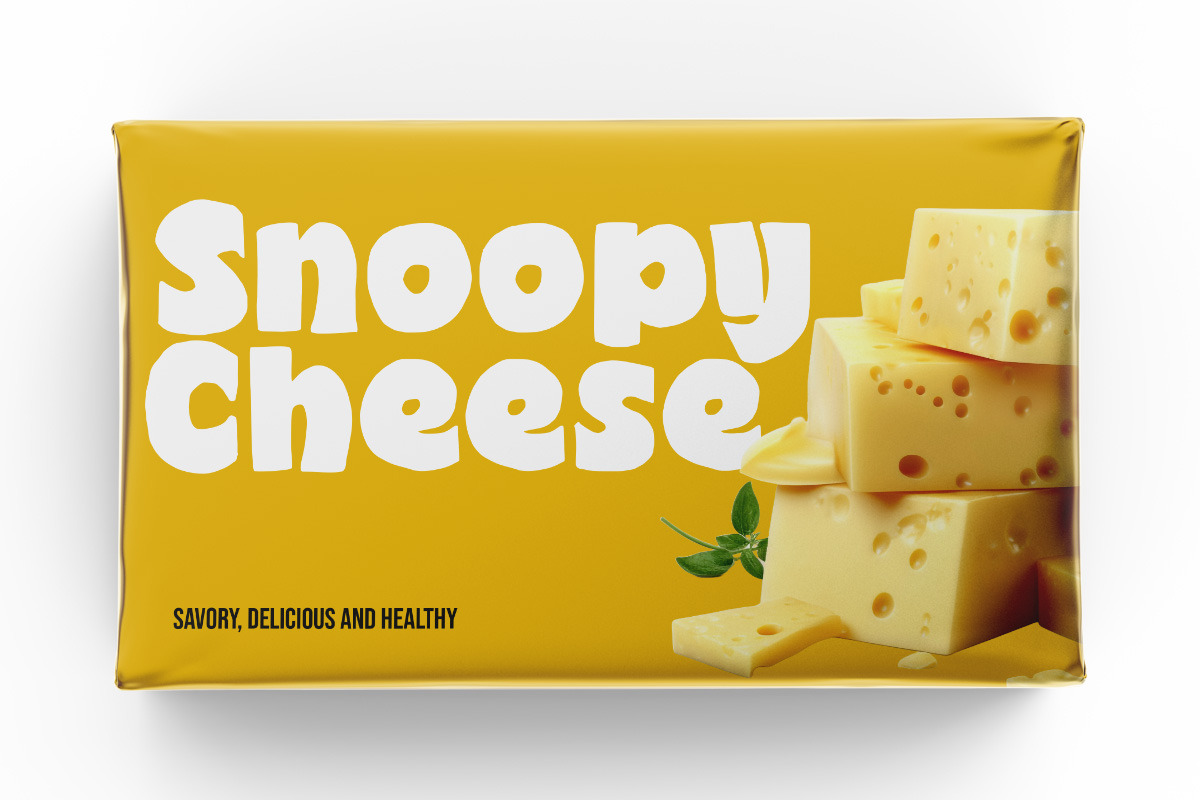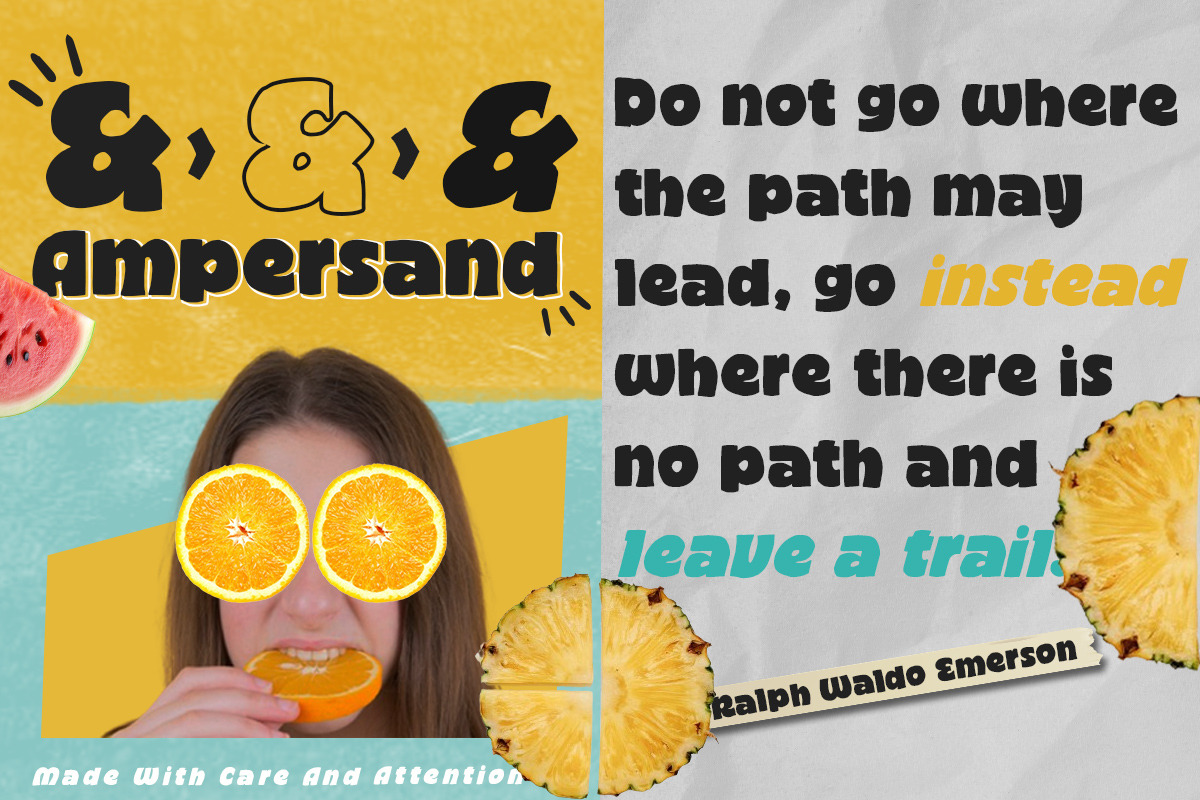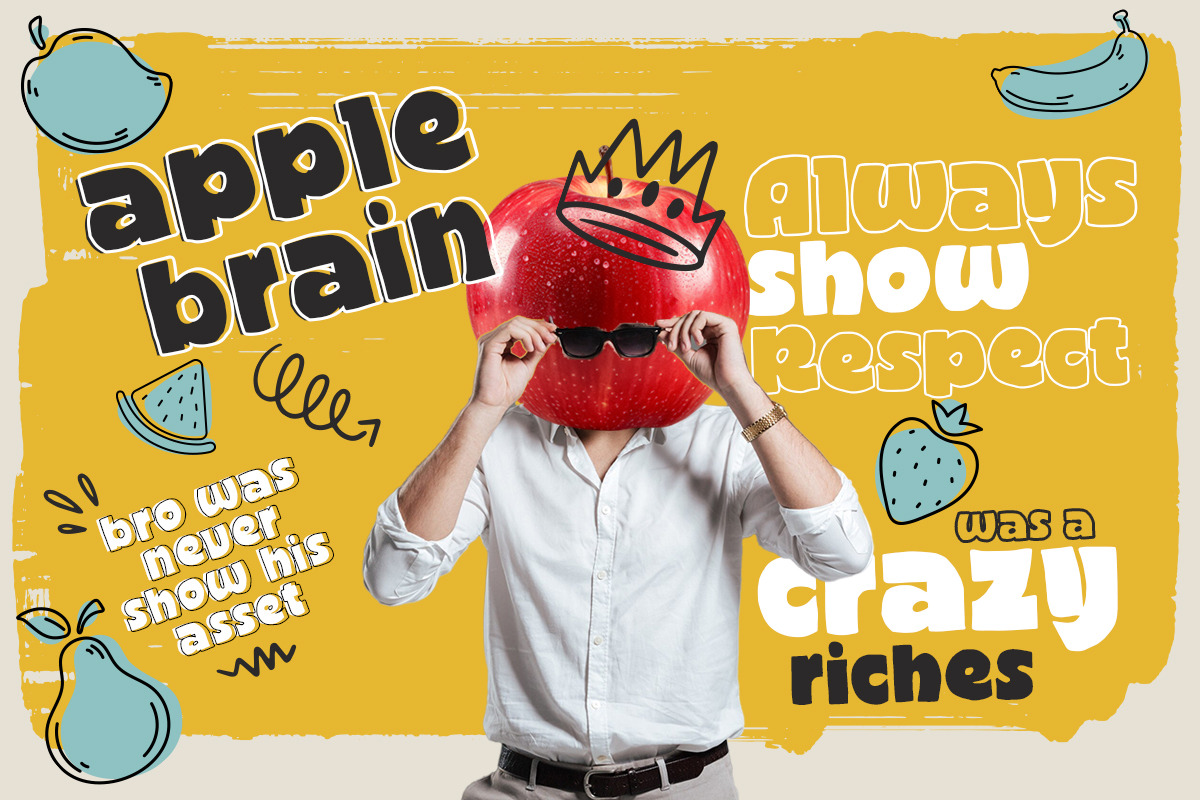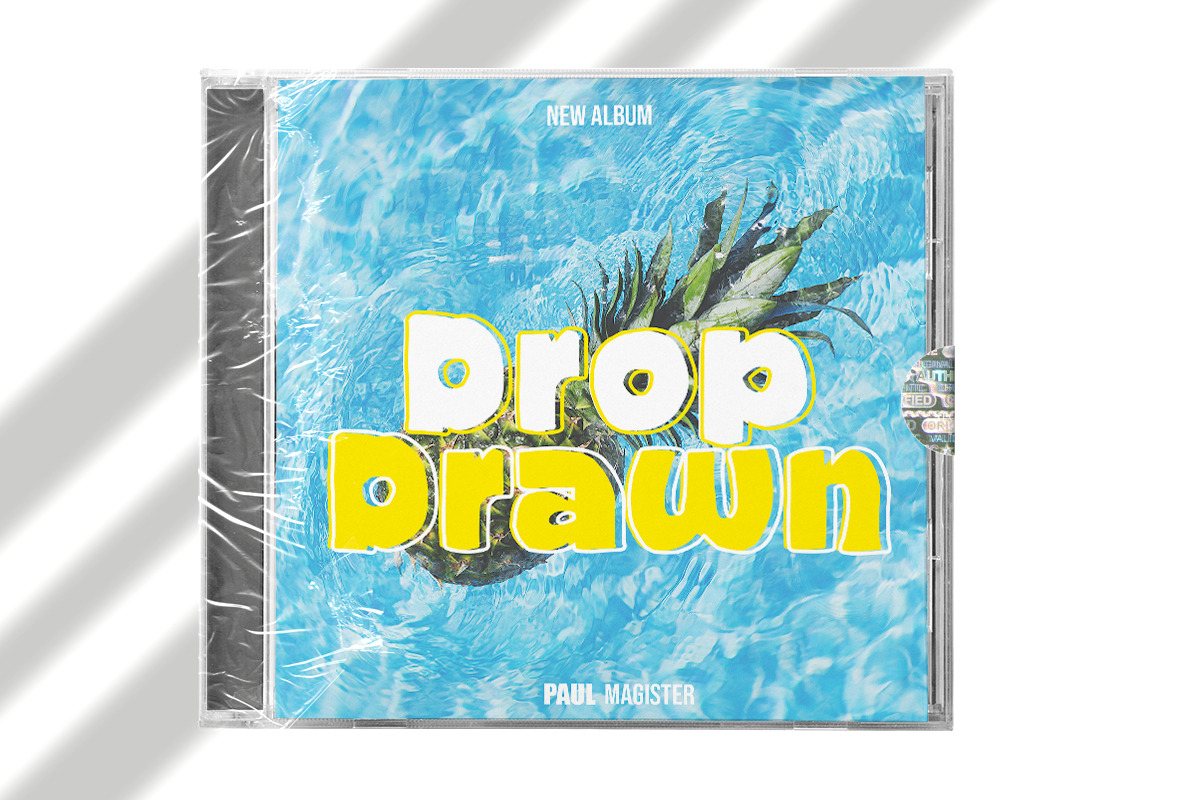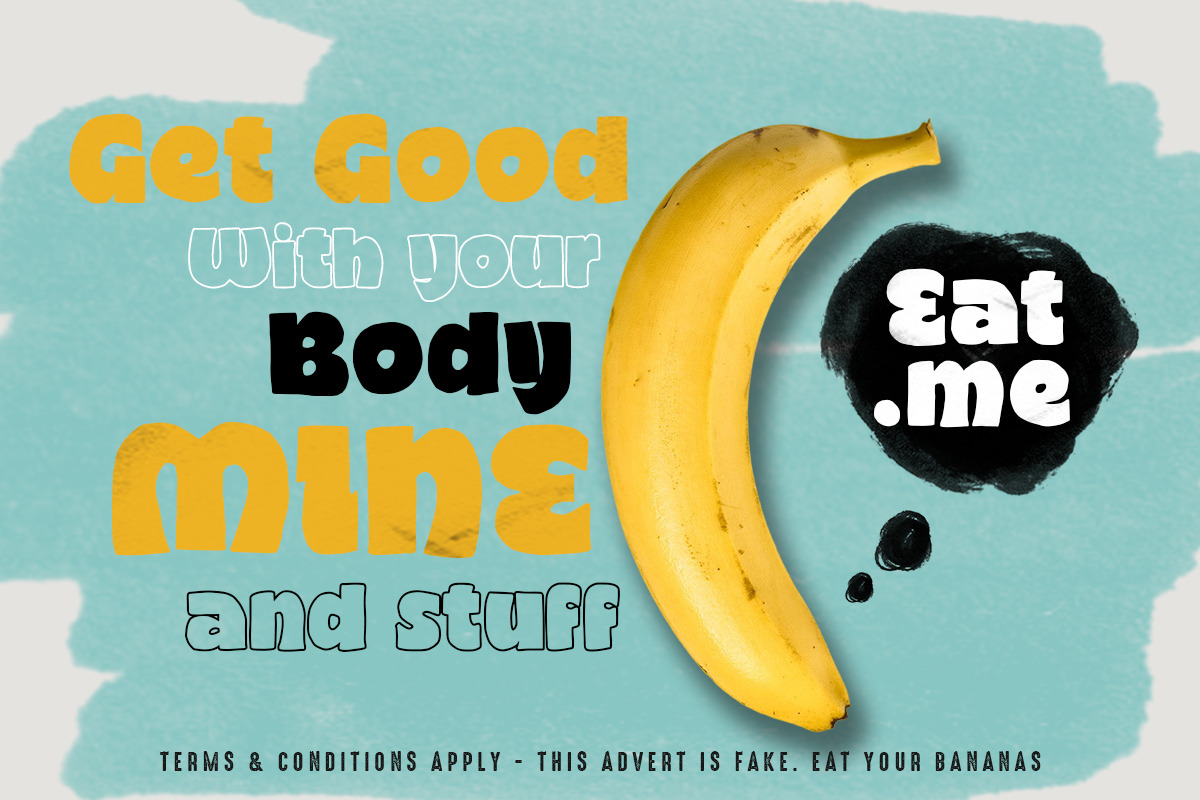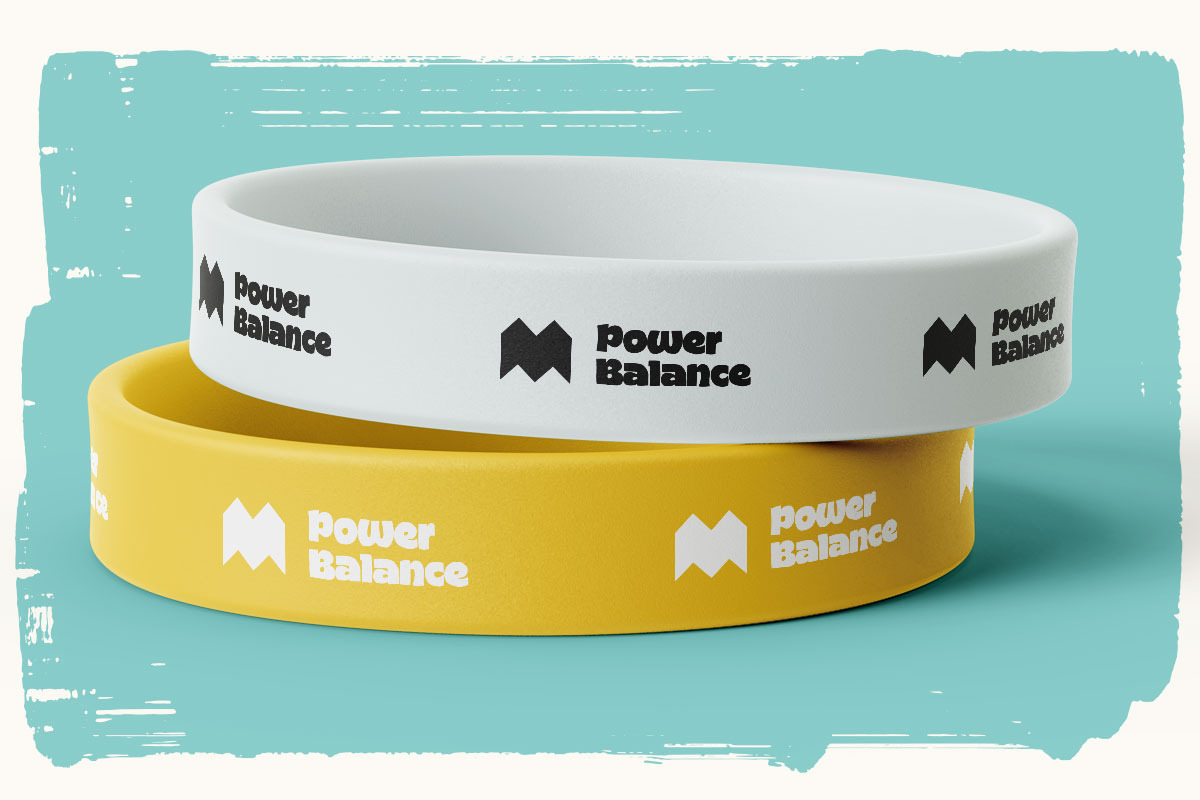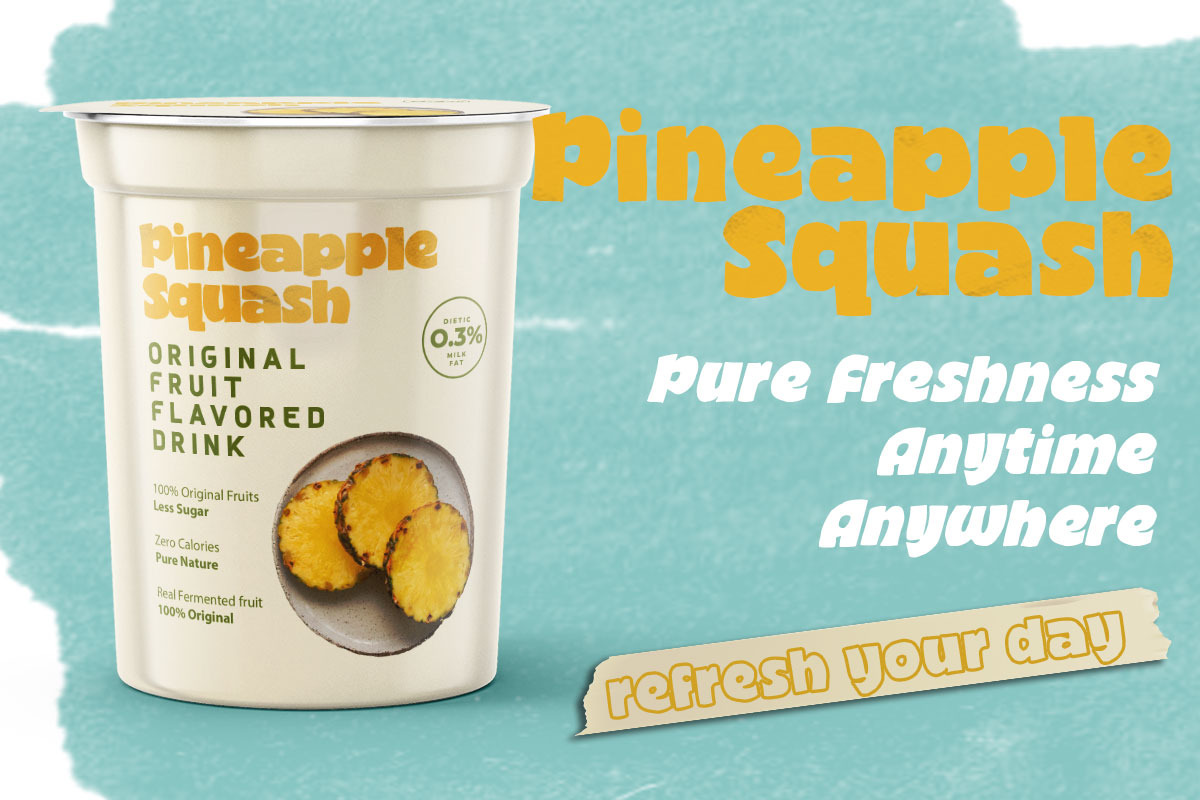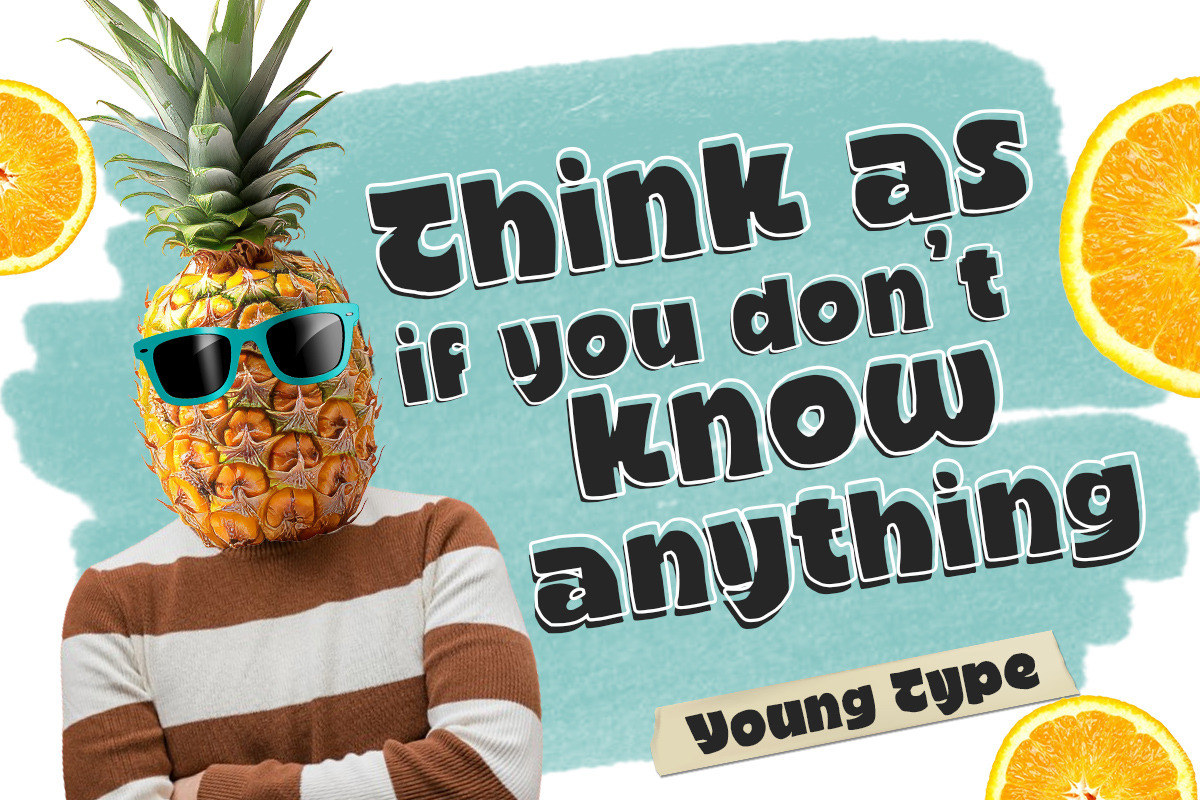
Somebody Pleasure
Somebody Pleasure Regular, Somebody Pleasure Italic & Somebody Pleasure Outline is a hand brush font made with brushes and ink. This typeface is ideal for use in thick watercolor designs or handwriting styles, such as blog titles, posters, wedding elements, t-shirts, clothing, book covers, business cards, greeting cards, branding, merchandise etc.